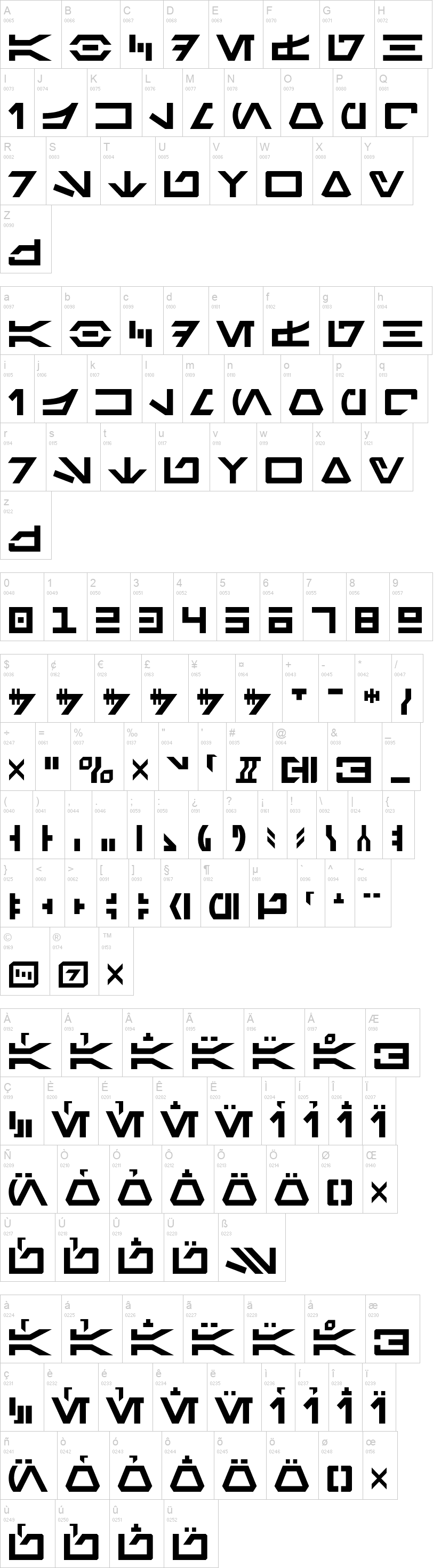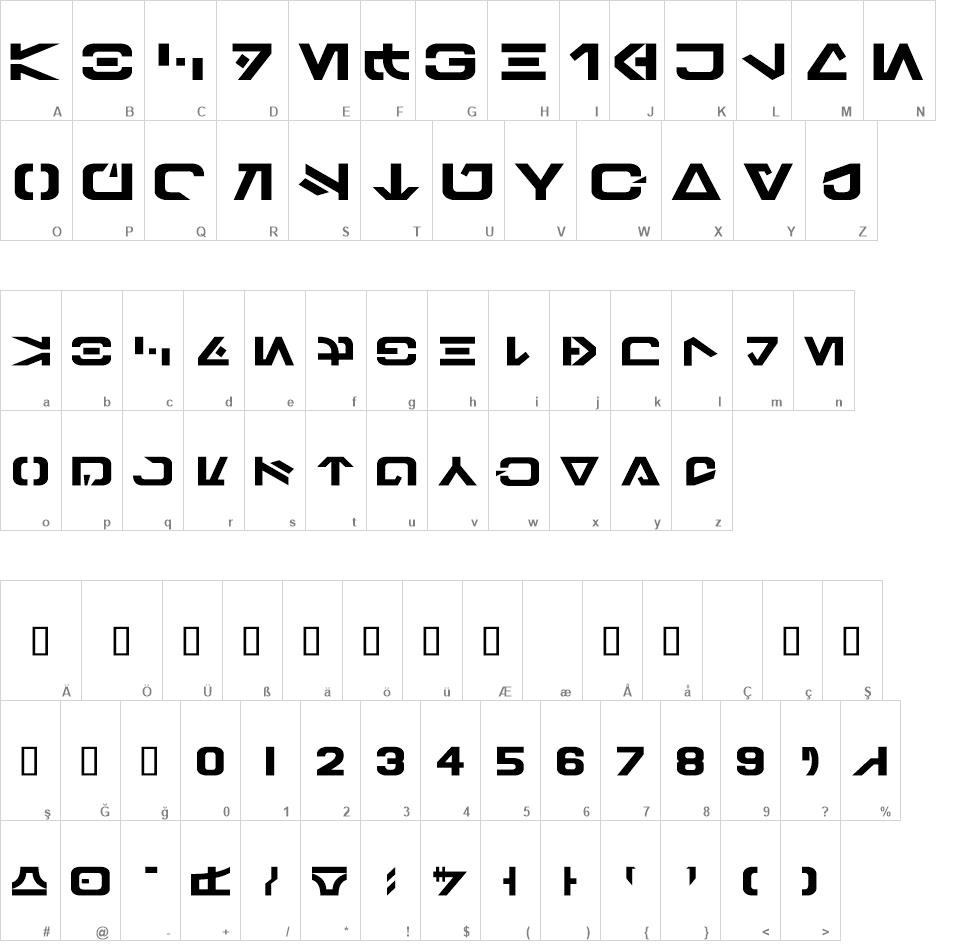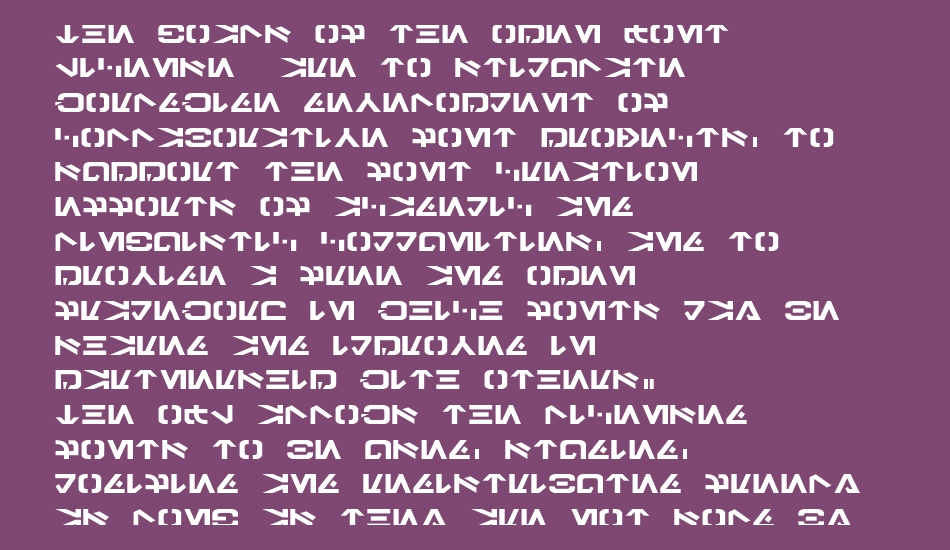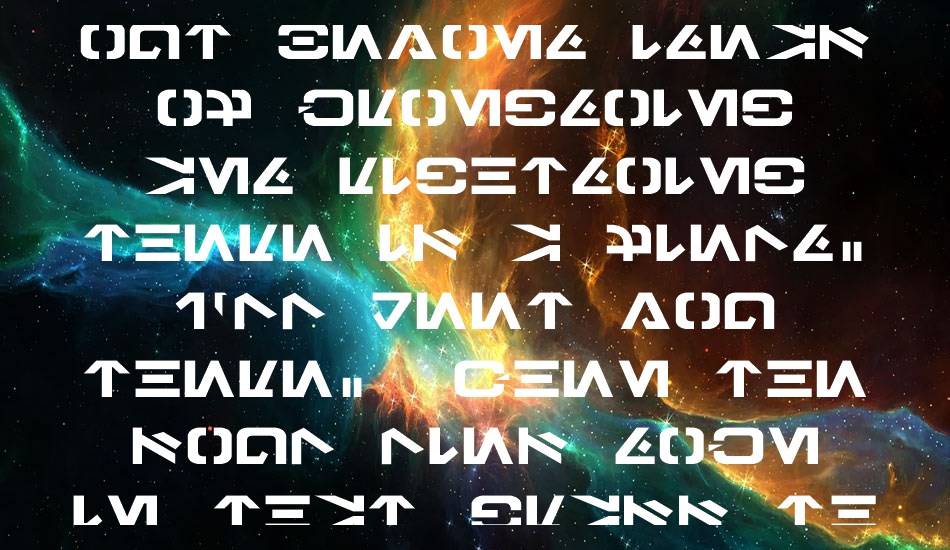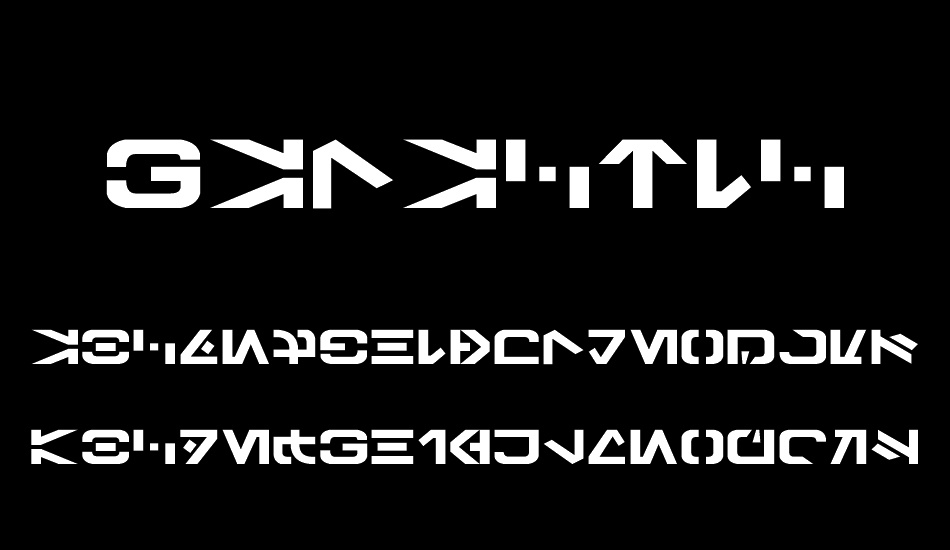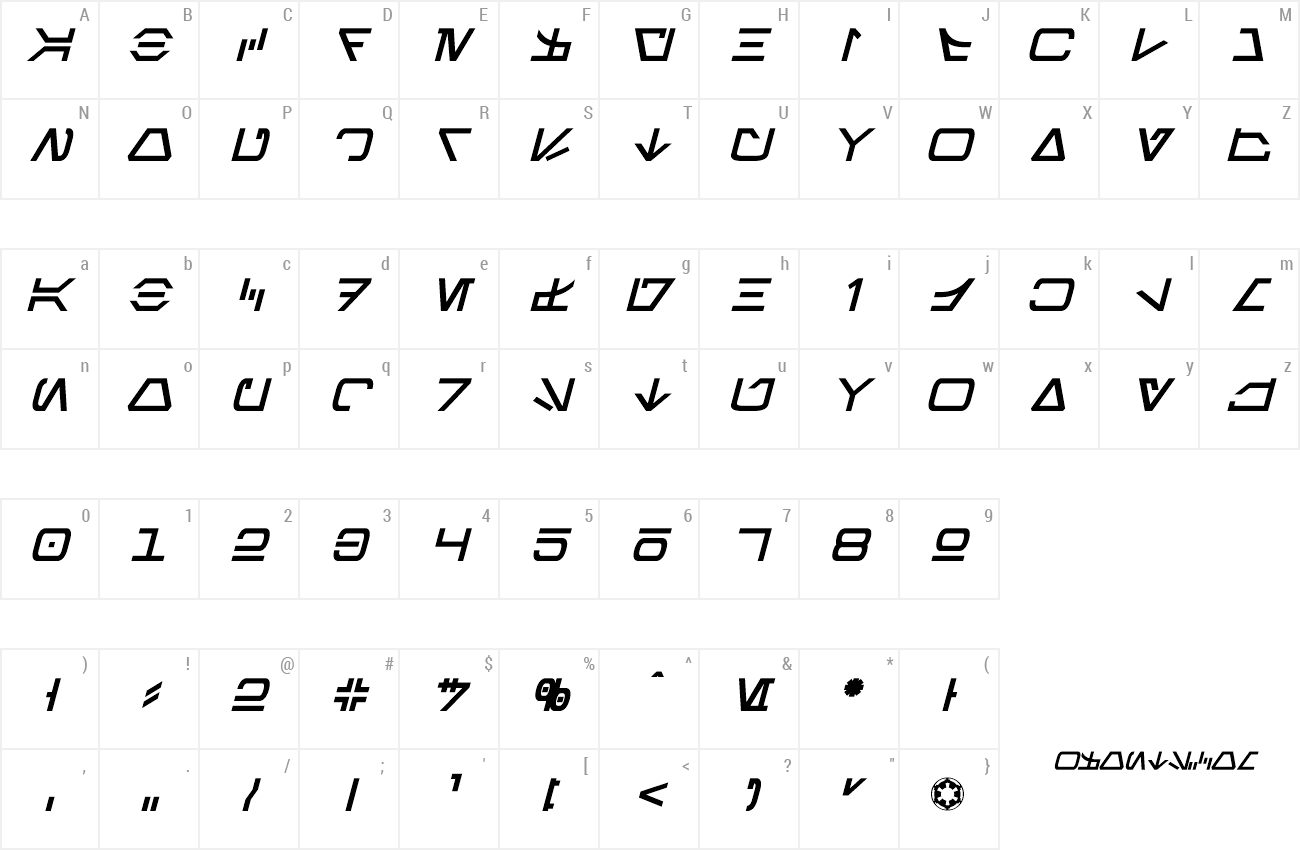
This Amazing Typeface Was Designed By A Very Notable Designer Named Pixel Sagas.
Aurebesh is a fictional language used in the star wars movies. The font contains characters from the following unicode character ranges: This font has very bizarre characters and shapes.
This Beautiful Font Is Designed Based On The Old Rpg Version.